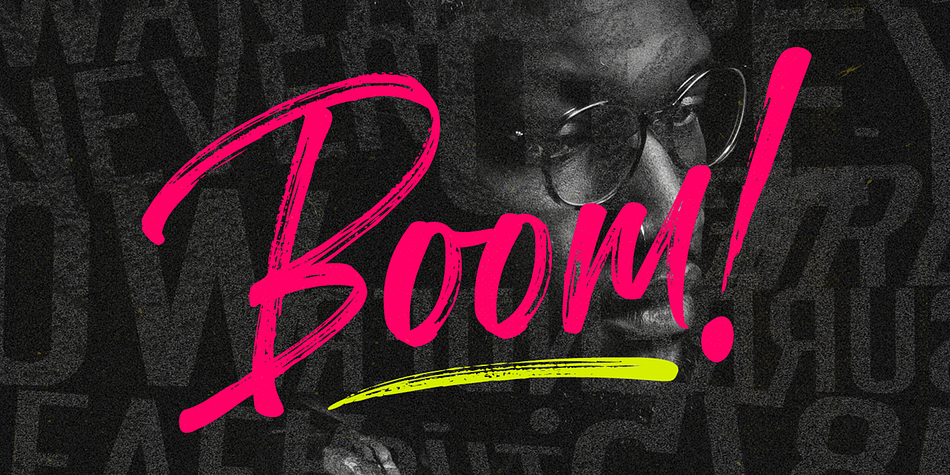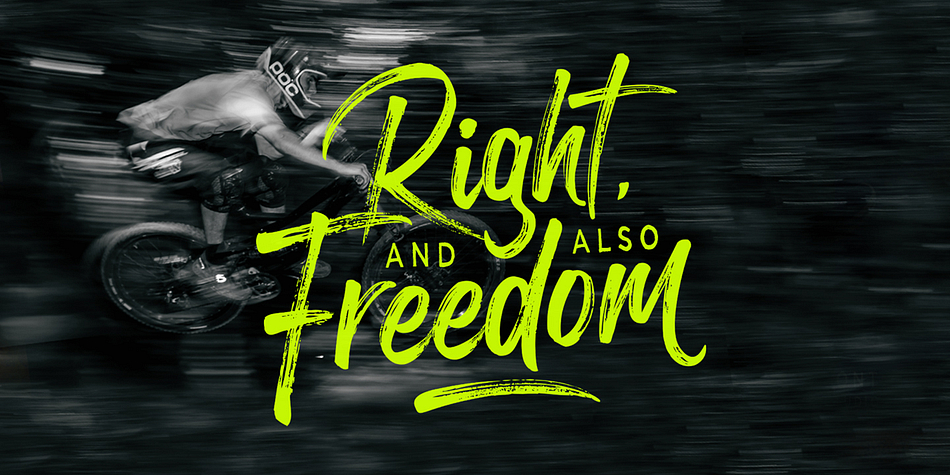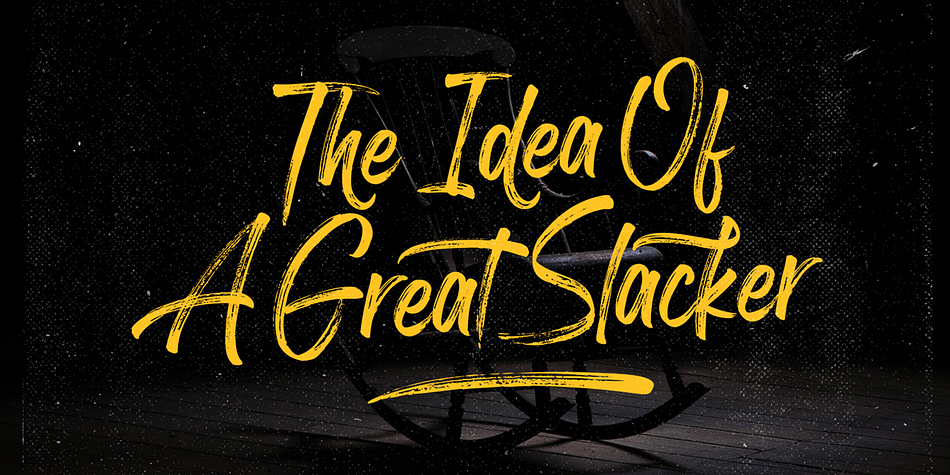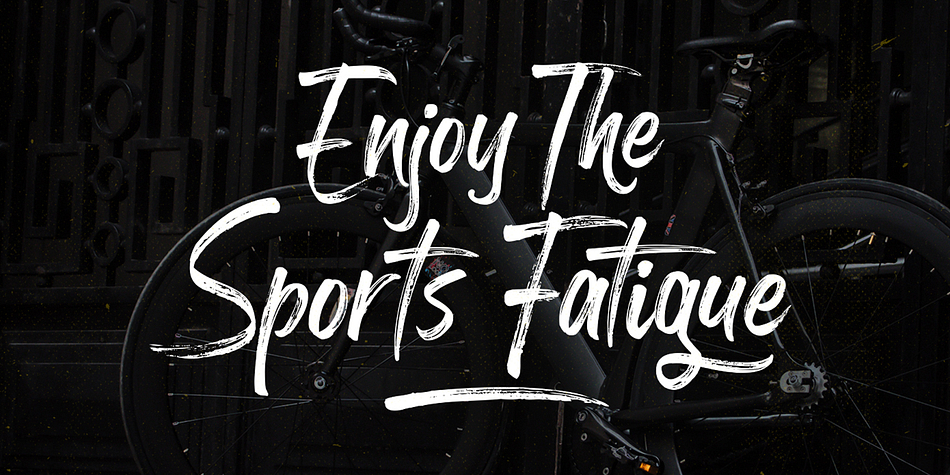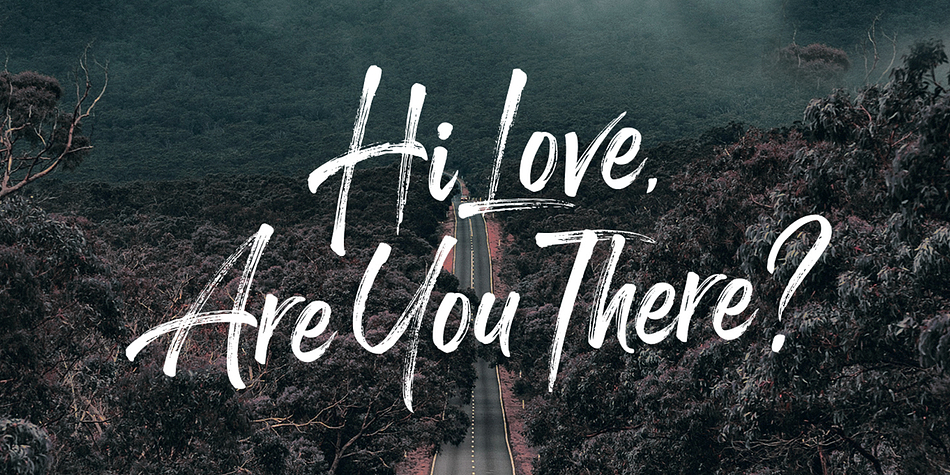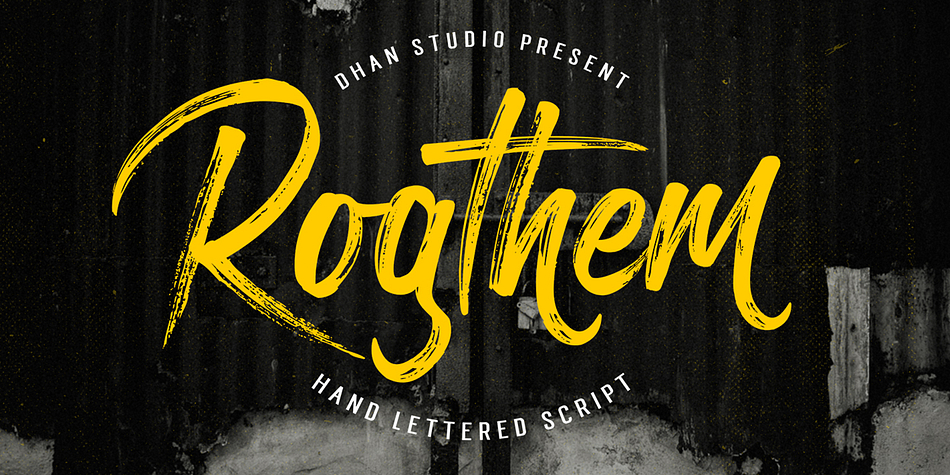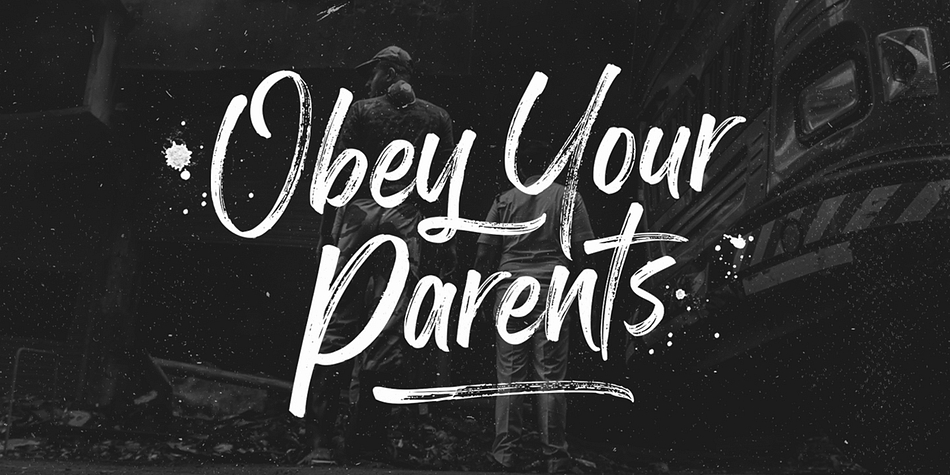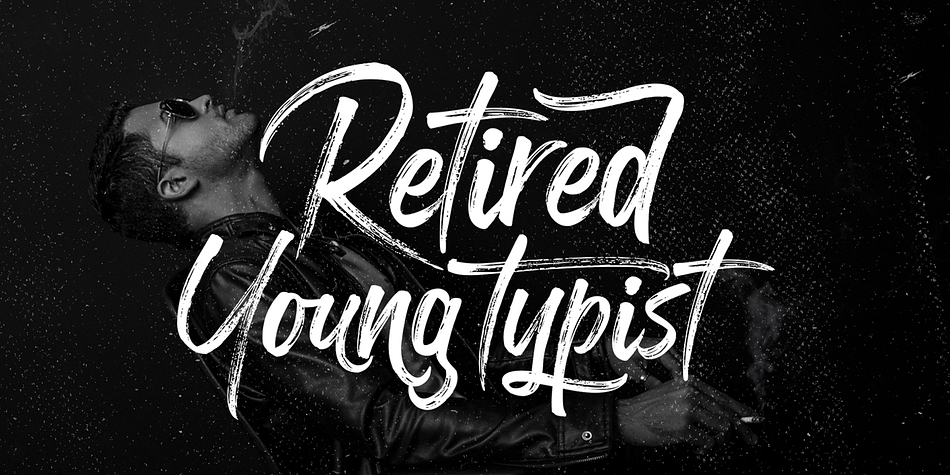
Rogthem is a brush script, script and dingbat font family. This typeface has two styles and was published by Dhan Studio.
Rogthem is textured brush font, contemporary approach to design, handmade natural with an irregular baseline. Suitable for use in title design. Such as apparel, invitations, books tittle, stationery design, quotes, branding, logos, greeting card, t-shirt, packaging design, poster and more.
Rogthem includes some alternates, ligatures and a complete set of uppercase and lowercase letters, as well as multi-language support, numbers, punctuation.